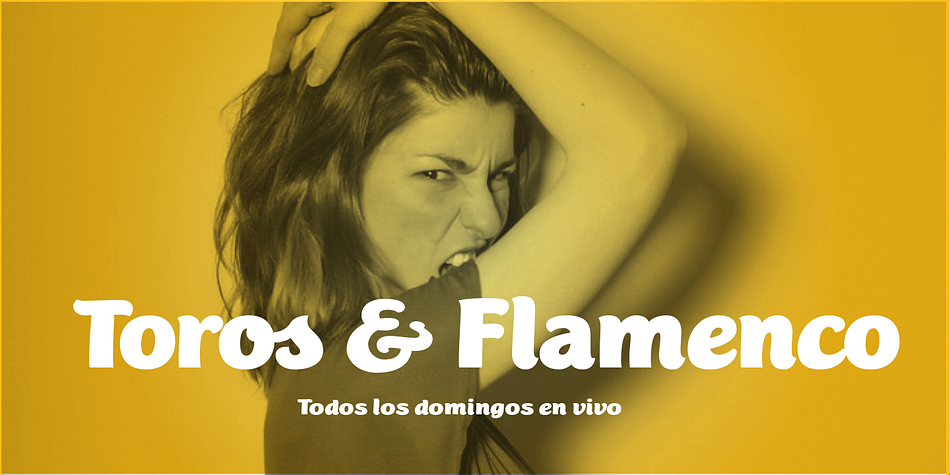
Mijas
Designed by Olcar Alcaide, Mijas is a brush script font family. This typeface has five styles and was published by Eurotypo.
Mijas Ultra font was designed specially as a headlines and caption text for advertising, packaging and Publishing design. It has strong visual impact, a persuasive personality and seduction appeal throughout its organic shapes.
This versatile typeface is quite useful for creating logotypes, a variety of alternates and swash tails in three different styles and length were drawn for most letters, plenty of vowel-focused ligatures, it covers all Latin-based languages. Please refer to quick reference manual included.
Mijas is a little white town located at a mountainside above the blue Mediterranean Sea, in the heart of the Costa del Sol. It has high contrast, small counterforms and friendly climate.